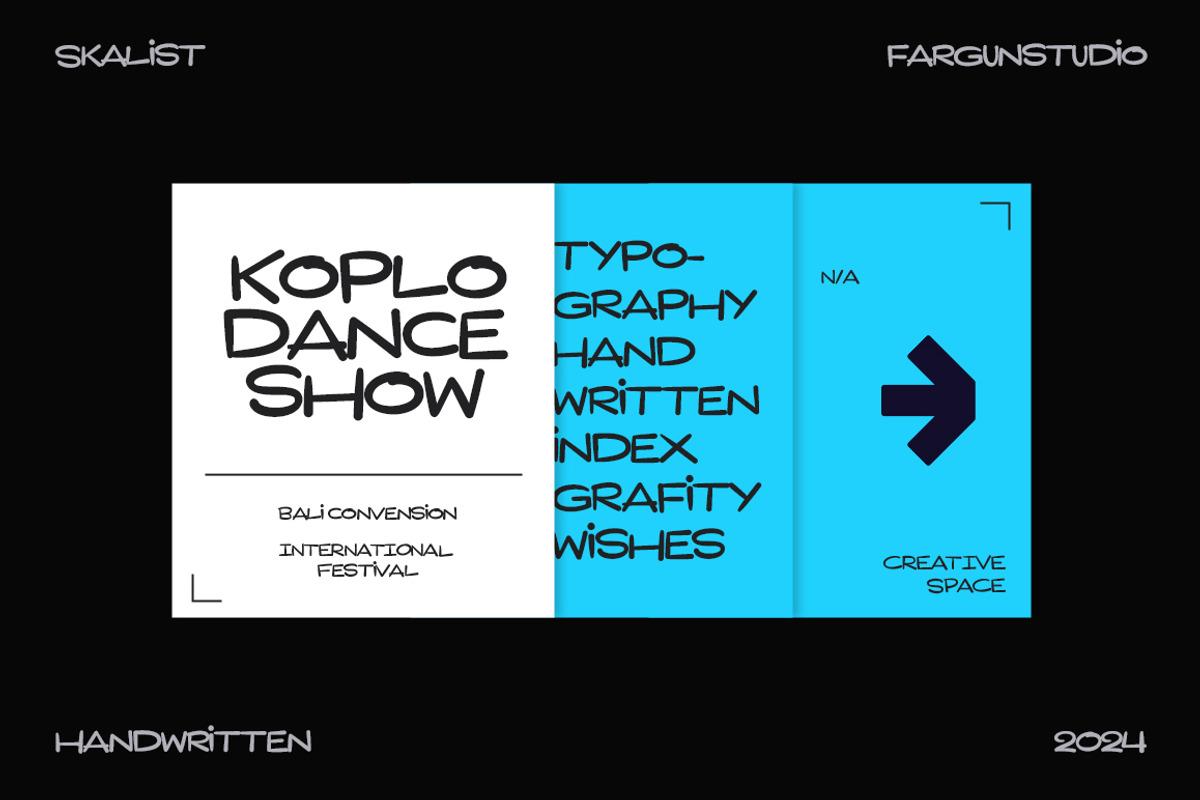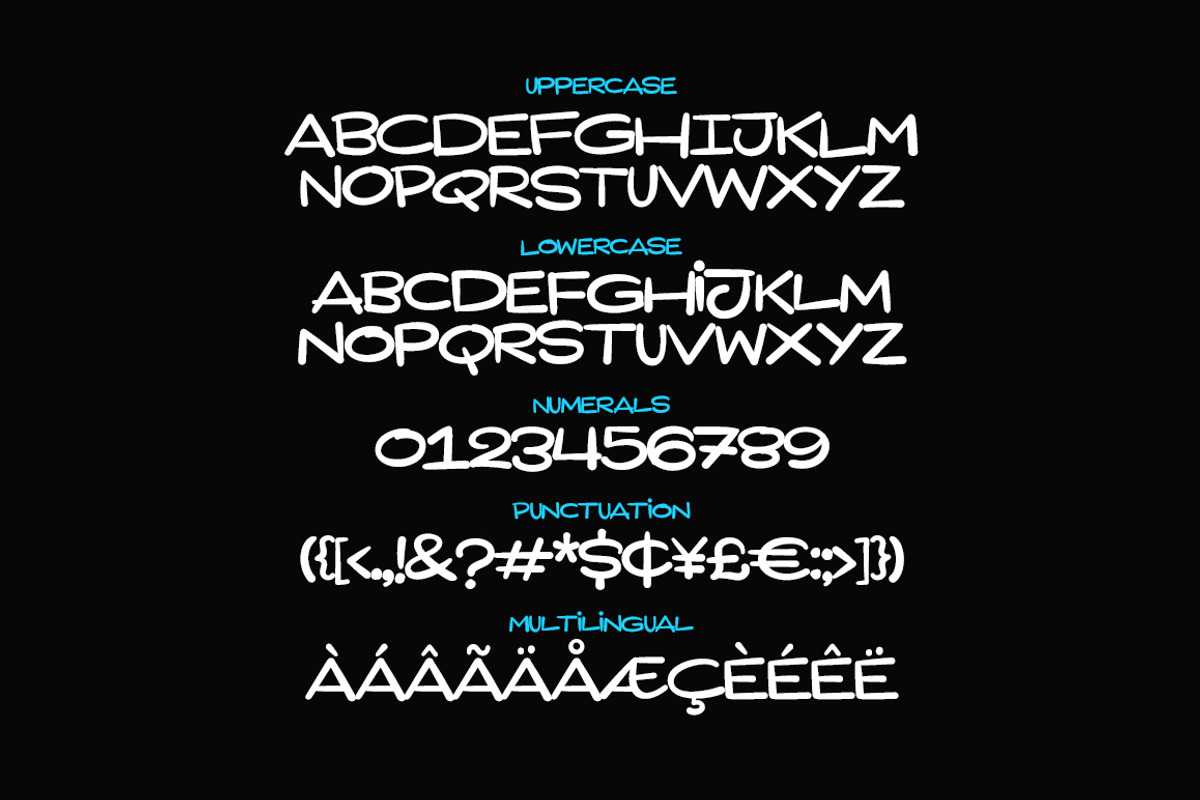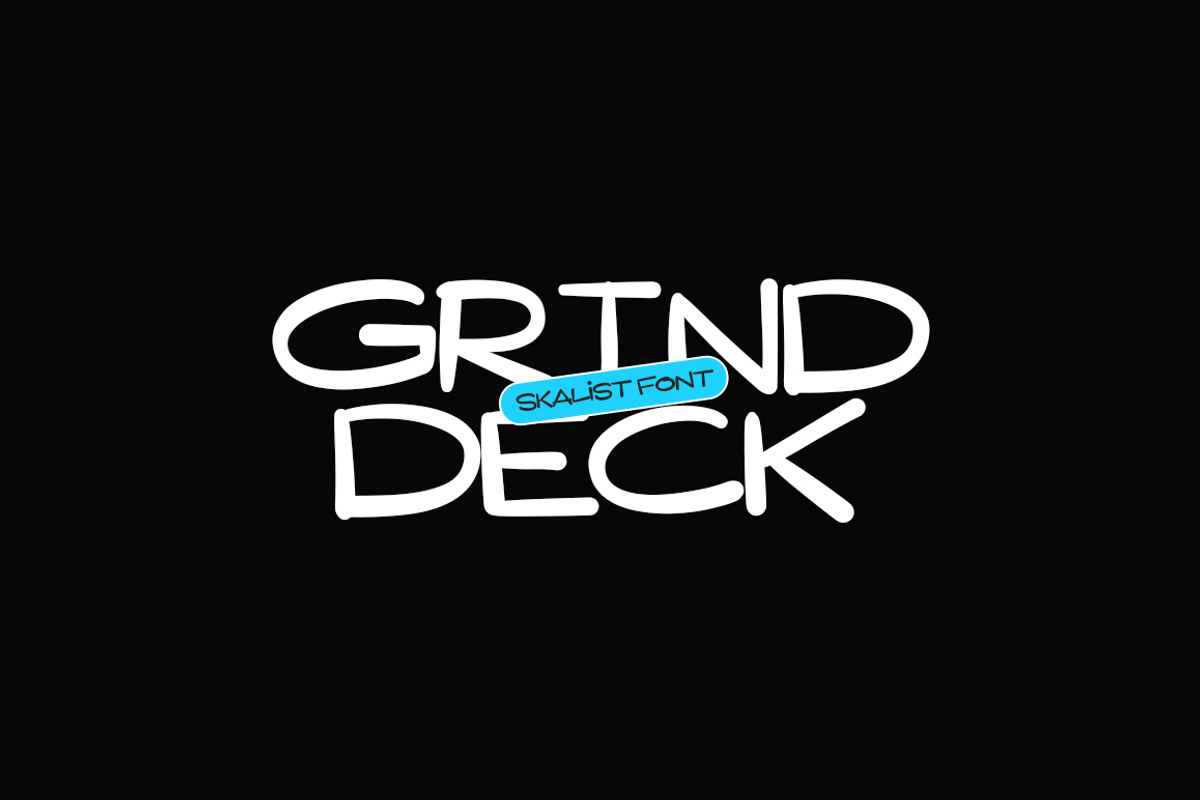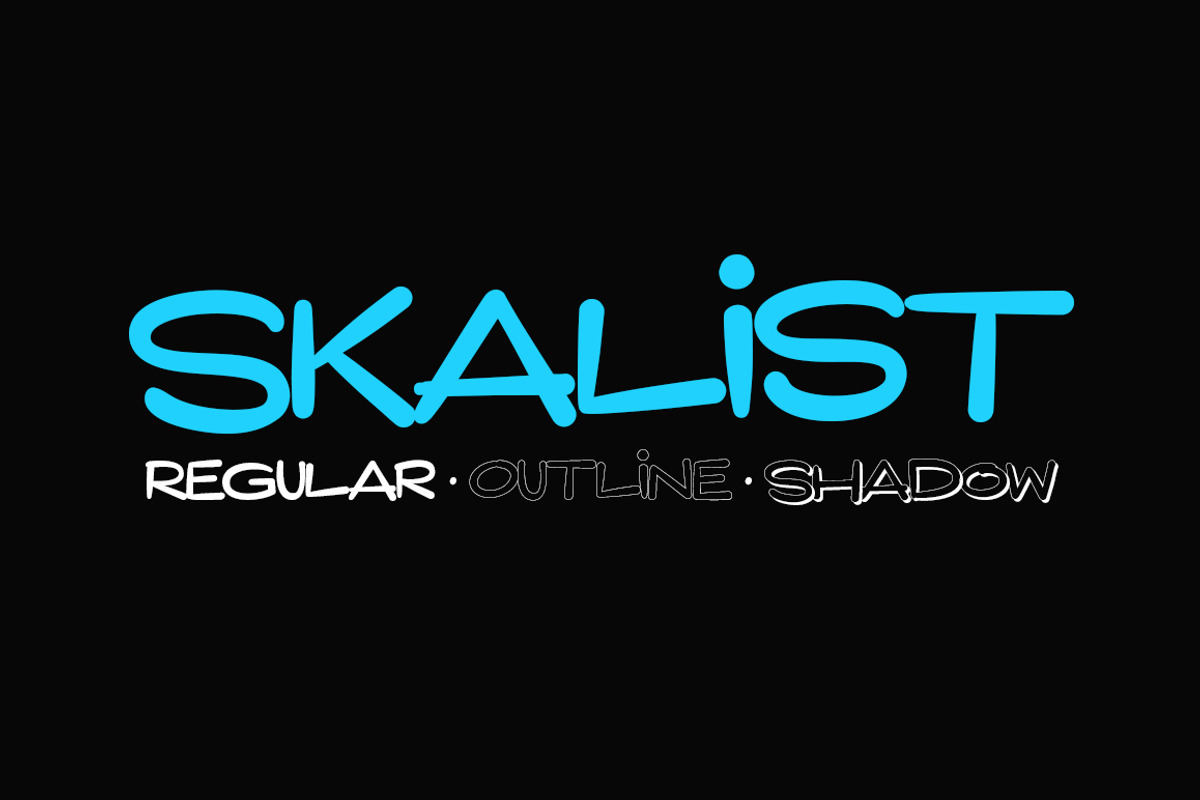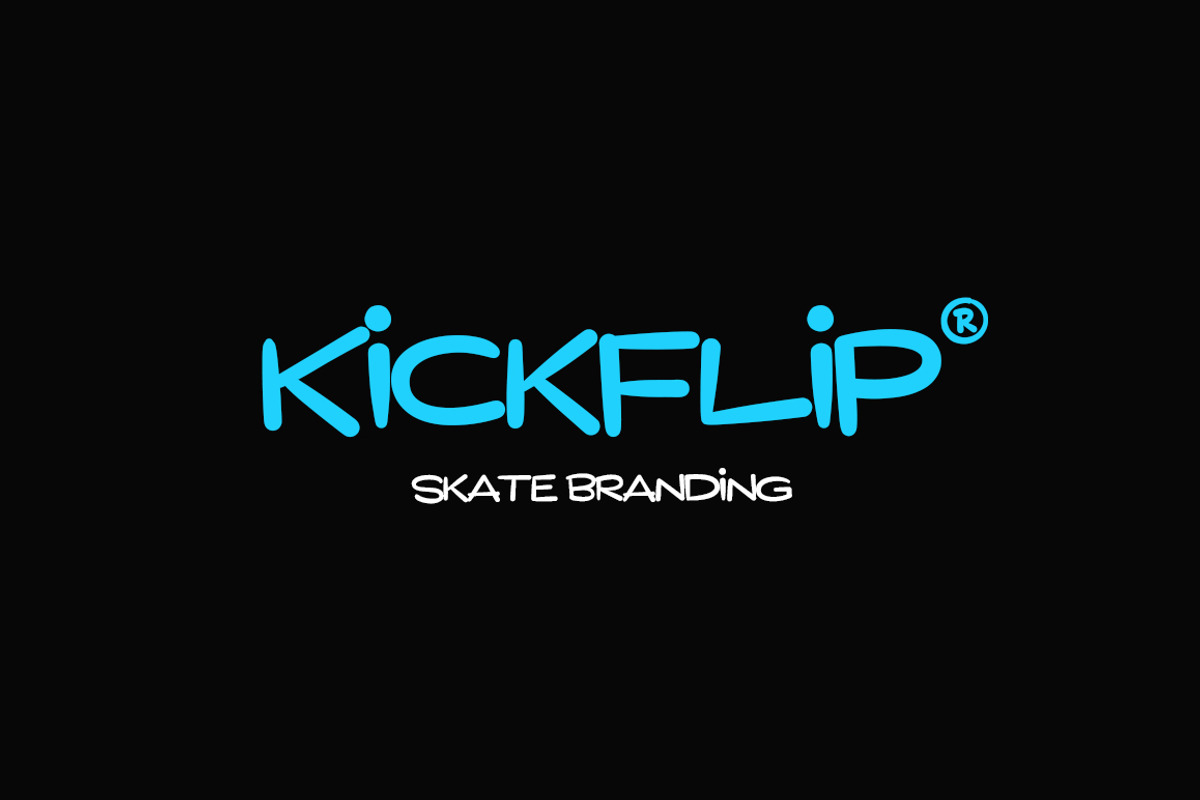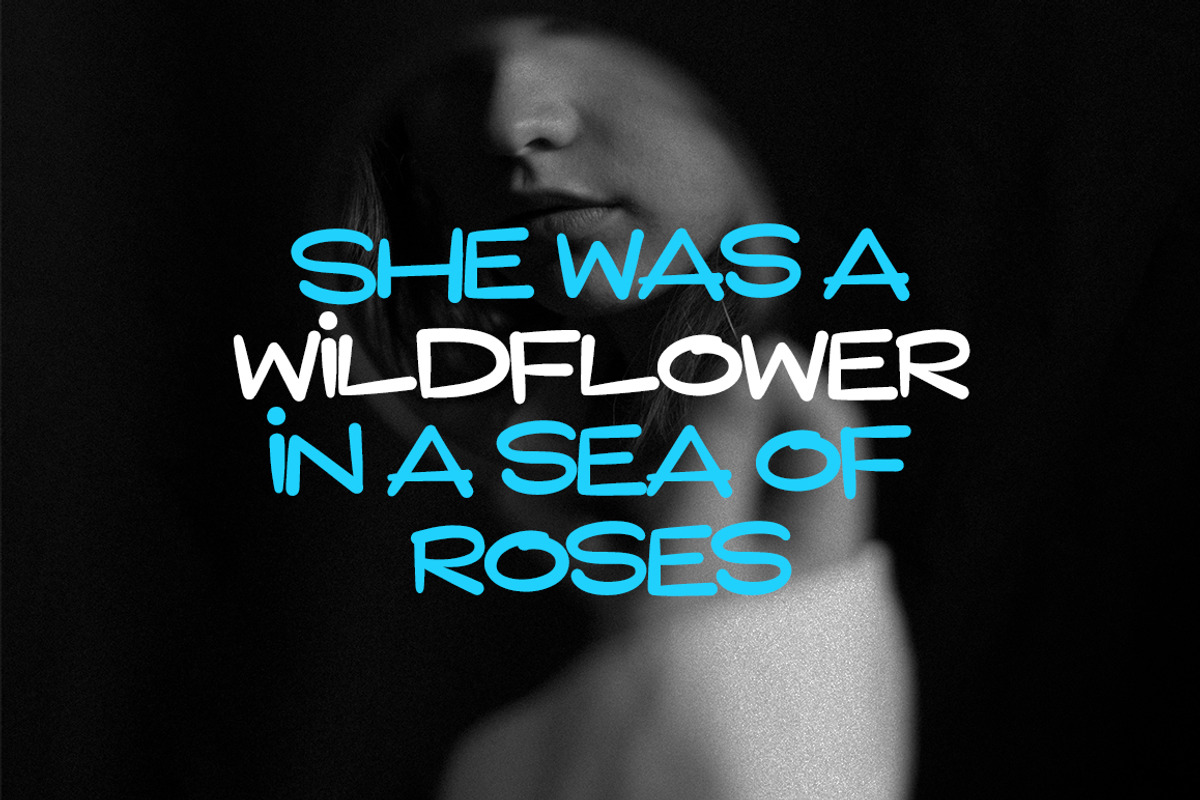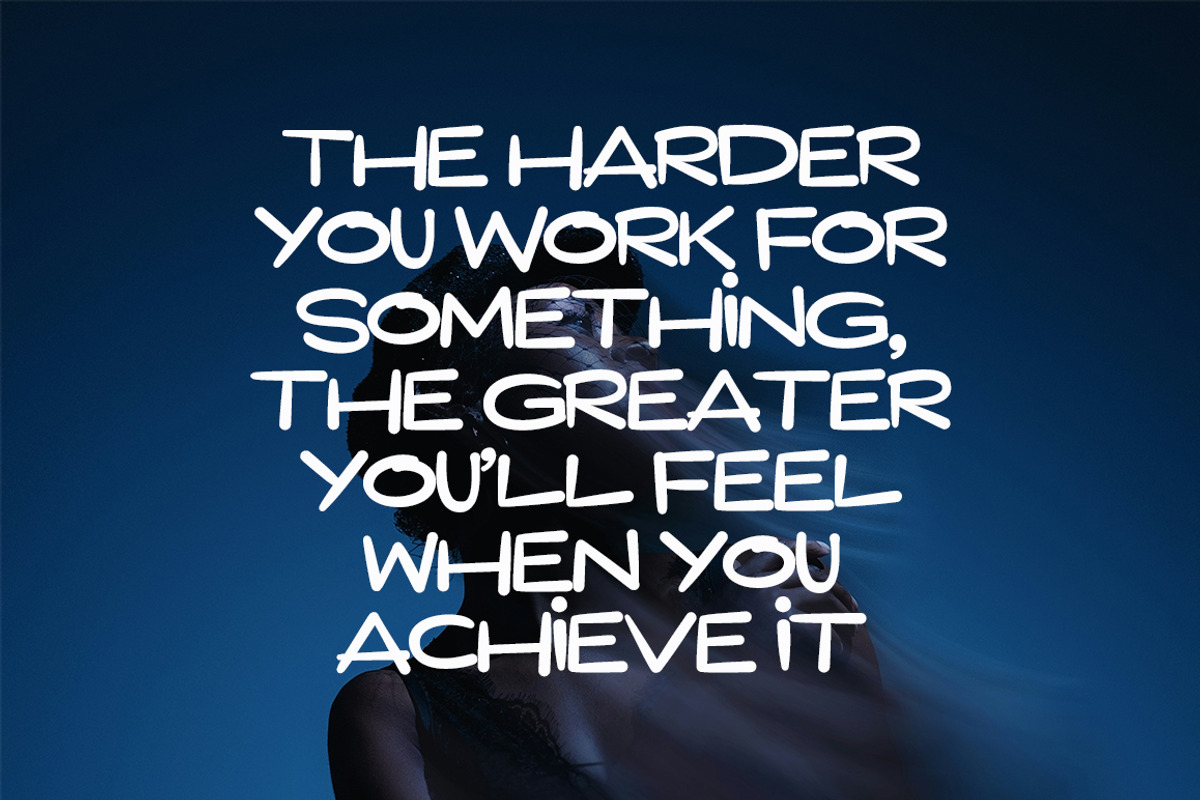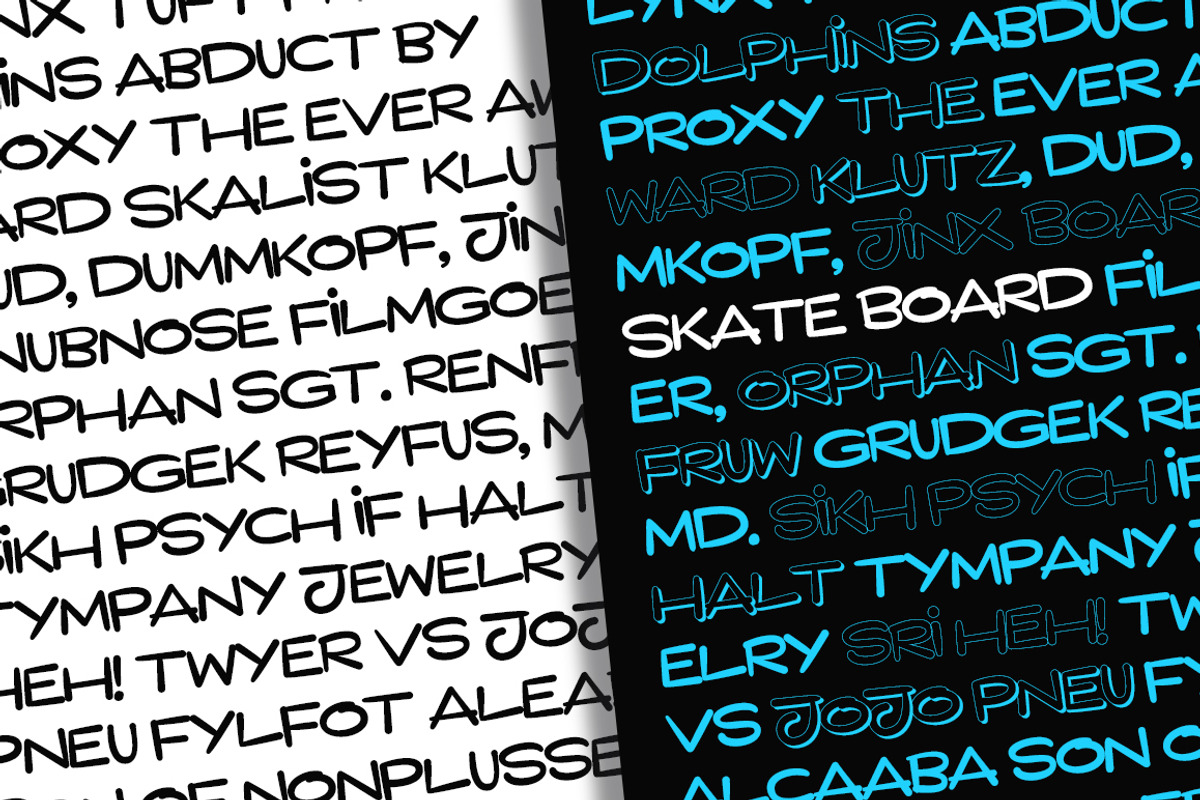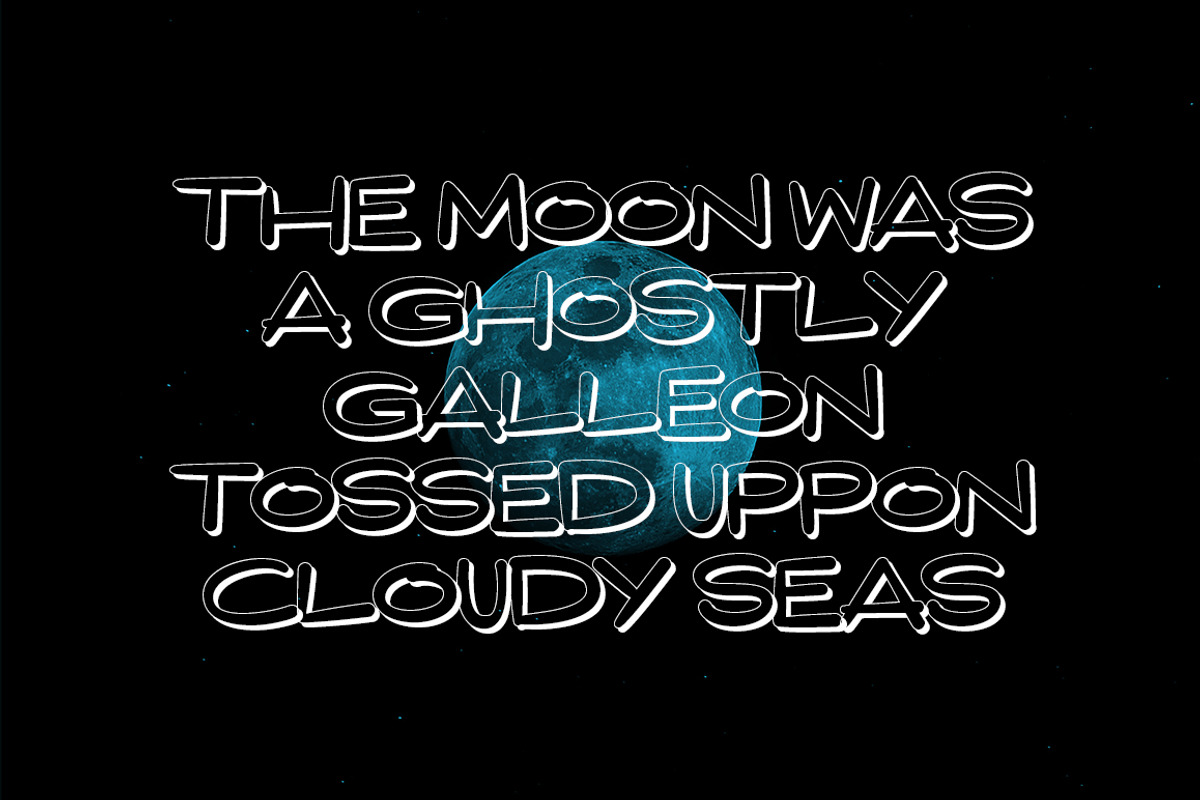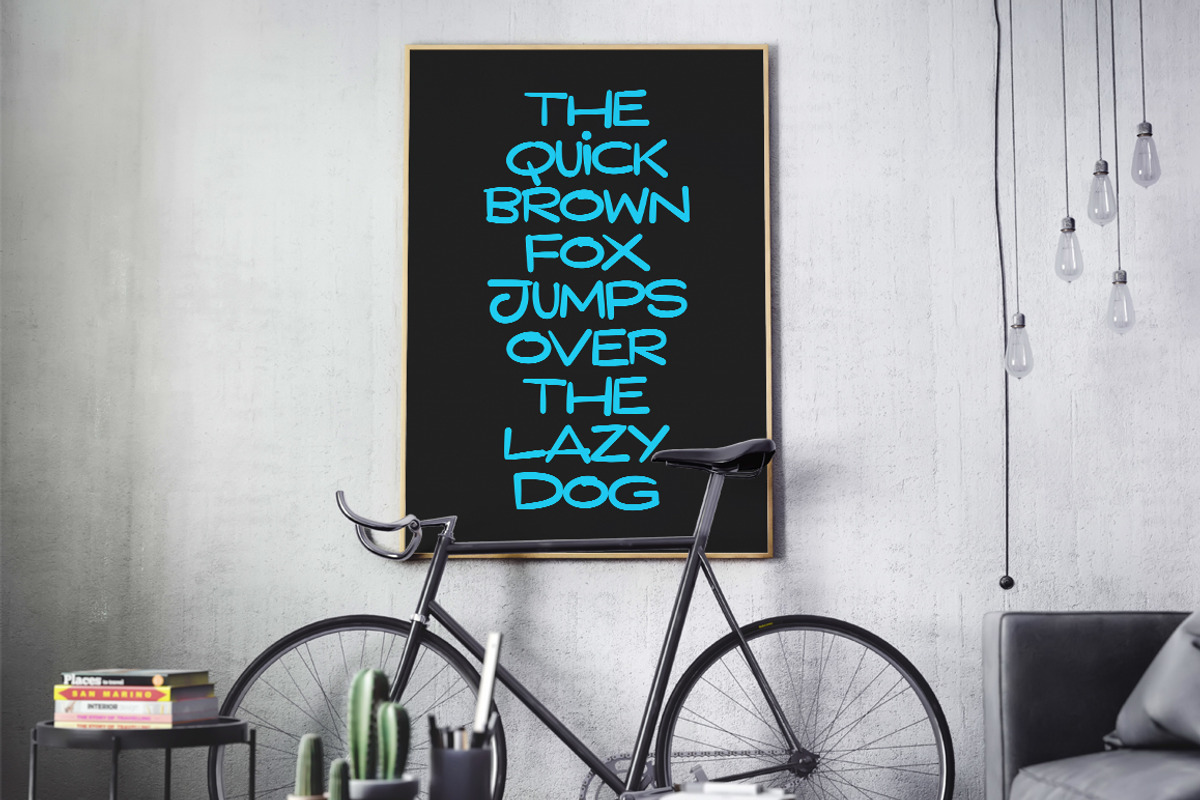
Skalist
A stylish handwriting font designed to bring charm to your notes, branding and flair to your display projects. Perfect for headlines, annotations, or adding a spark of creativity—this freshly crafted, texture-rich font is here to elevate your designs with personality and pizzazz.